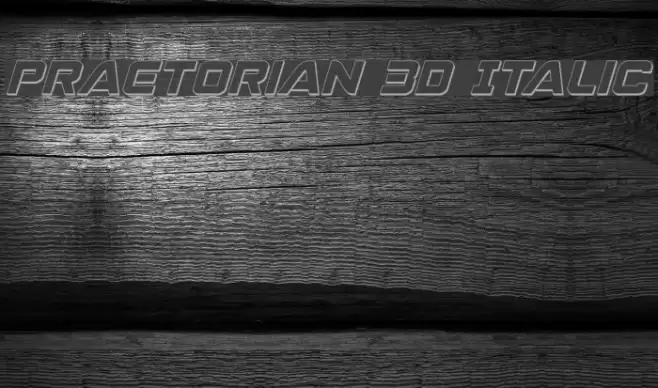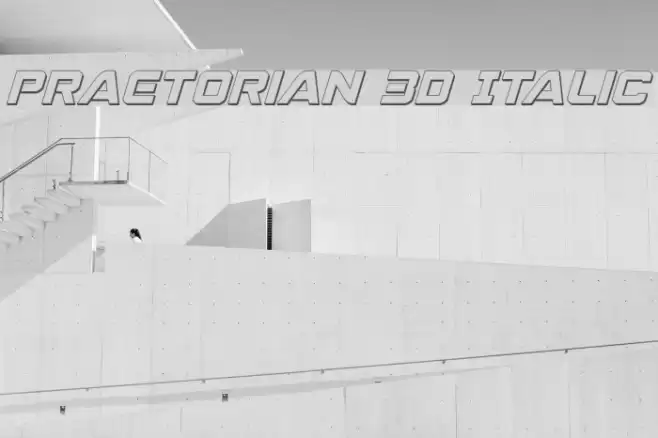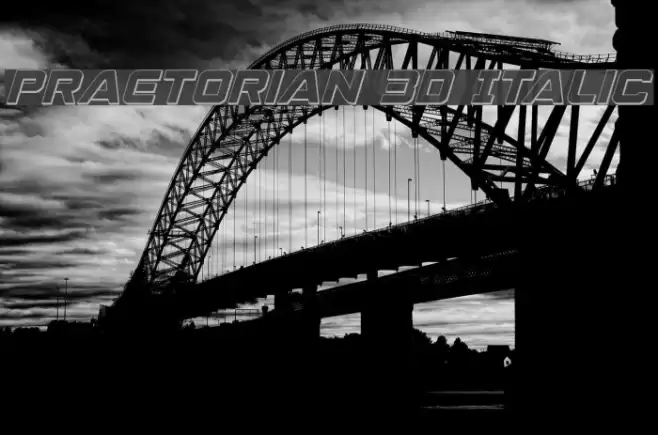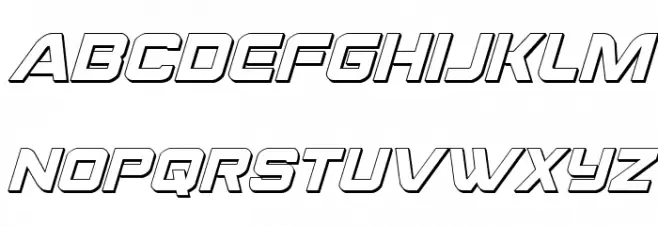
Praetorian 3D Italic Font
Praetorian 3D Italic Description
This font features a bold, three-dimensional design with an italic slant, giving it a dynamic and futuristic appearance. The characters are outlined, creating a hollow effect that enhances the 3D illusion. The uppercase and lowercase letters maintain a consistent style, with sharp angles and clean lines. The numerals and special characters follow the same design principles, ensuring uniformity across the font. The overall look is modern and eye-catching, making it suitable for projects that require a strong visual impact.
A bold, 3D italic font with outlined characters and a futuristic style from Uncategorized fonts.
- Proposed Projects: Ideal for video game titles, sci-fi posters, tech branding, and dynamic presentations.